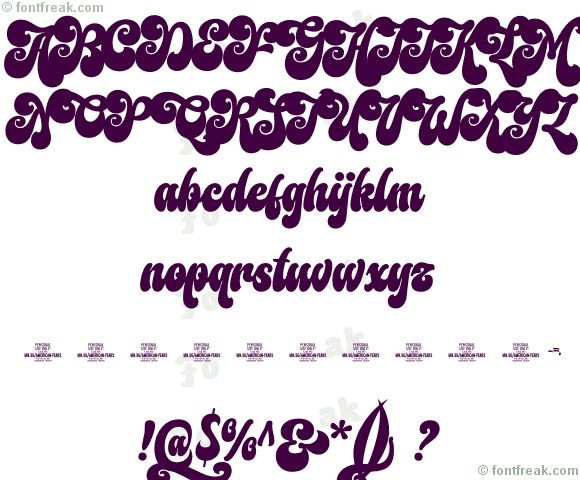
American Years PERSONAL USE Regular
About American Years PERSONAL USE Regular
The American Years PERSONAL USE Regular font by Mans Greback is a captivating display typeface that embodies a playful yet nostalgic charm. This decorative font features rounded, bubbly letterforms that evoke a sense of warmth and friendliness. The stroke weight is consistent throughout, providing a harmonious visual experience, while the subtle contrast adds depth and character to each letter. The spacing is well-balanced, ensuring legibility even in longer texts. This font is perfect for a variety of creative applications.
Best suited for design projects such as wedding invitations, birthday party flyers, and festive event posters, American Years adds a whimsical touch that is sure to delight. It can also enhance restaurant menus, particularly those that aim for a casual, family-friendly vibe, or be used in branding for small businesses looking to convey a sense of fun and approachability. Graphic designers, small business owners, and content creators will find this font an invaluable addition to their toolkit.